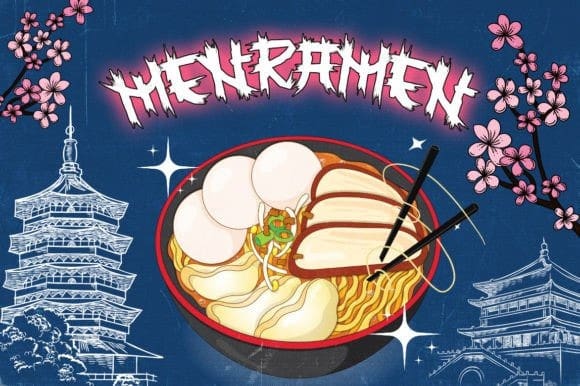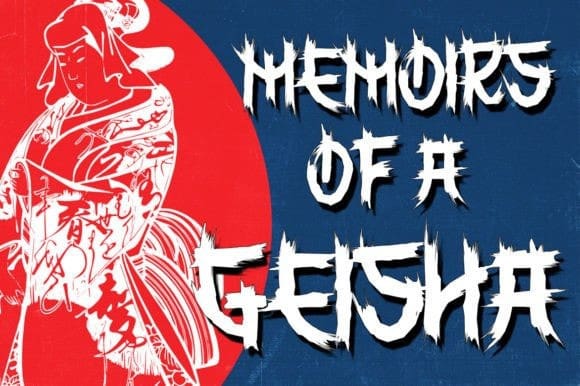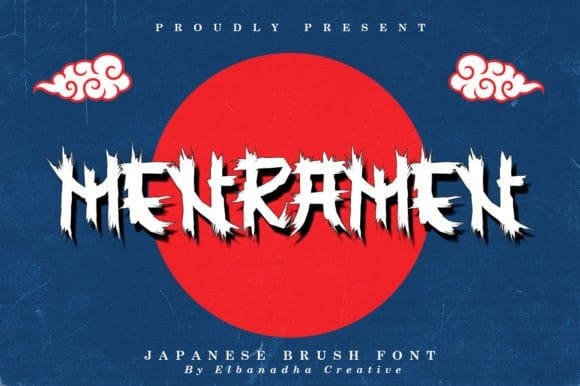
Menramen Brush Font
MENRAMEN BRUSH FONT – JAPANESE BRUSH FONT , from Elbanadha Creative, suitable for any projects such as logos, branding projects, homeware designs, product packaging, mugs, quotes, posters, shopping bags, t-shirts, book covers, name card, invitation cards, greeting cards, label, photography, watermark, special events, and all your other lovely projects that need a beautiful taste.